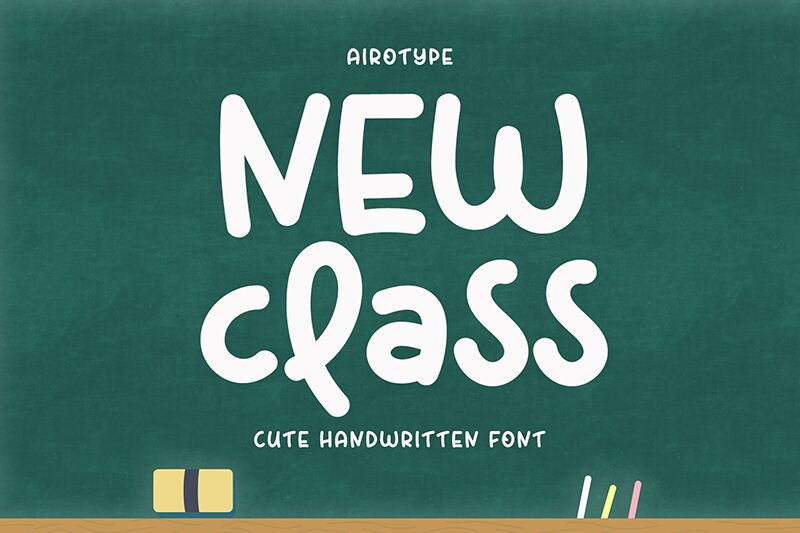
New Class font by Airotype is a free handwritten font that brings a whimsical and organic touch to any project. With a casual, rounded, and friendly feel, this font is crafted to provide an approachable and inviting aesthetic. Its natural flow captures a warm, personable tone that is suitable for various creative applications.
Ideal for children's products, educational materials, or informal branding, this font is perfect for adding a unique charm to greeting cards, logos, posters, book covers, websites, social media content, event invitations, personal blogs, or product packaging.